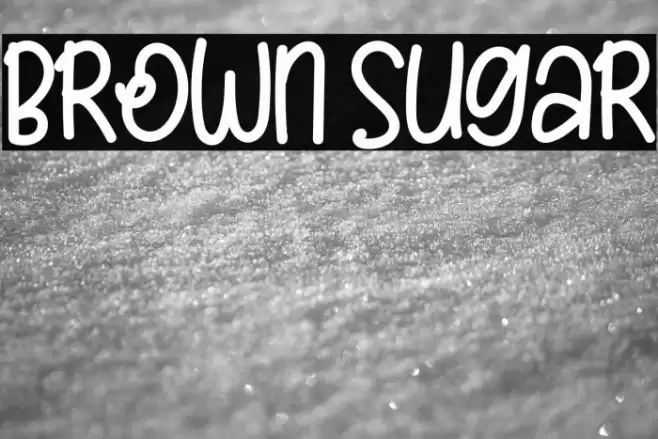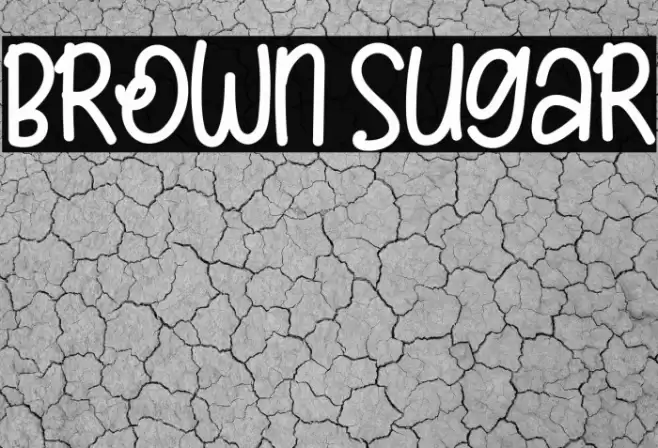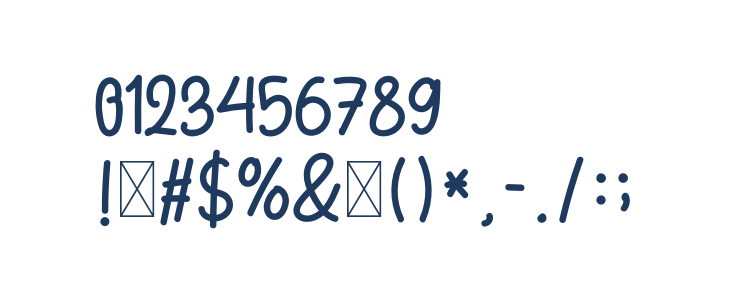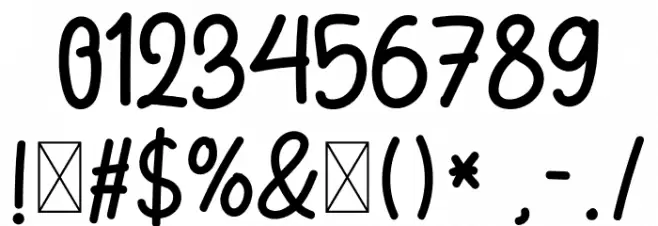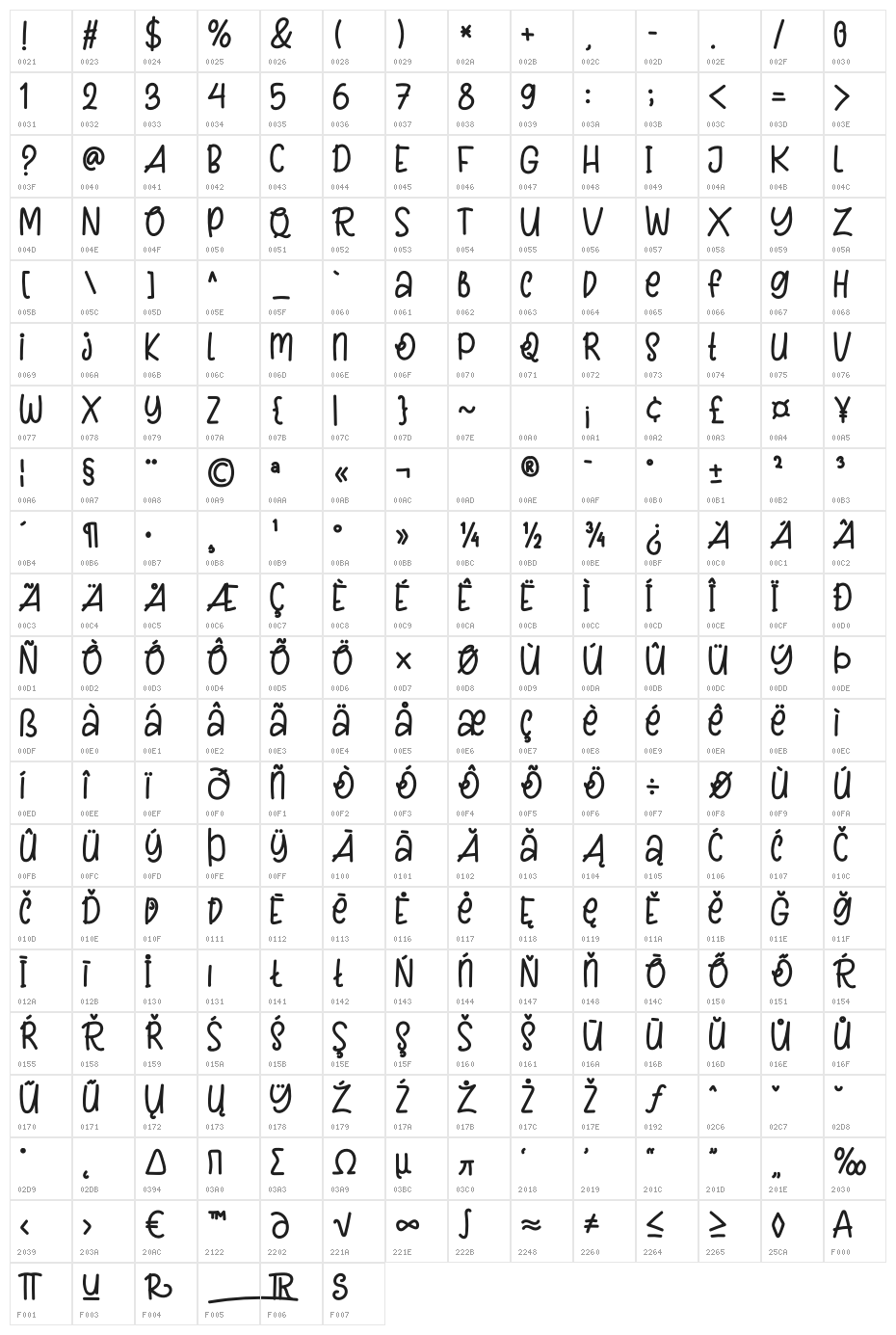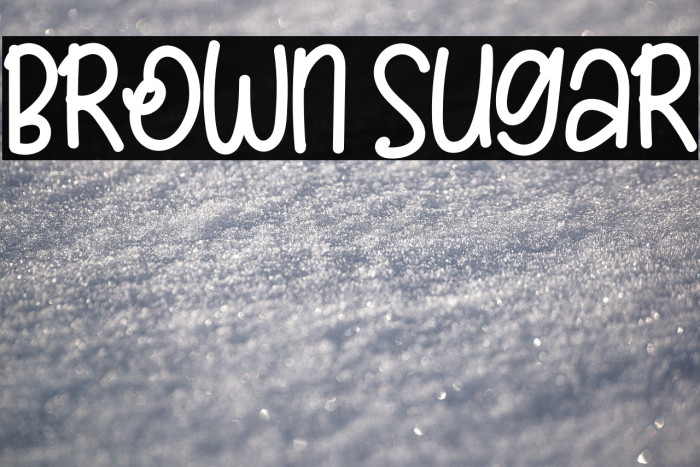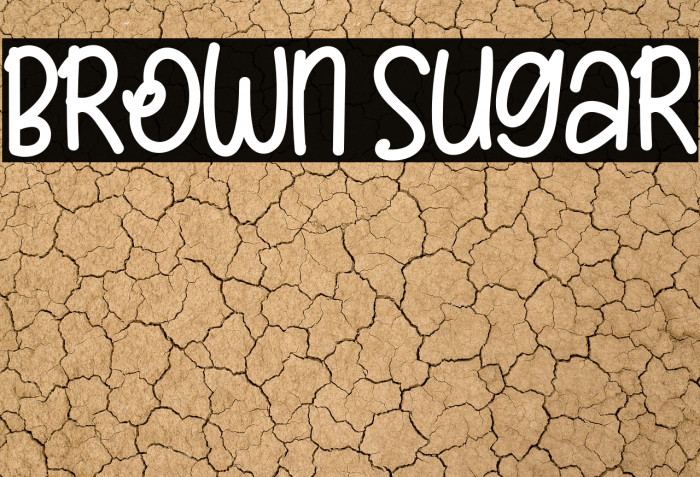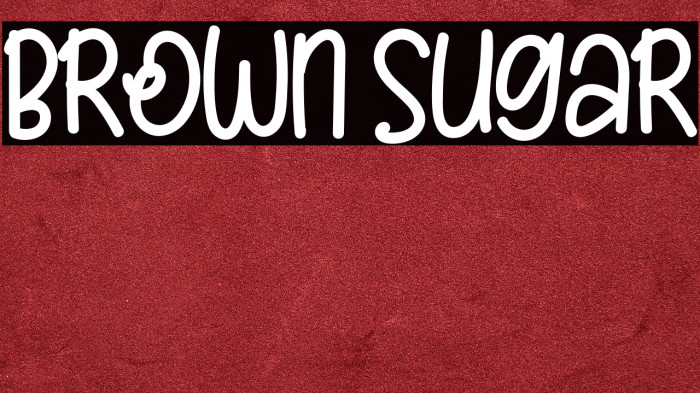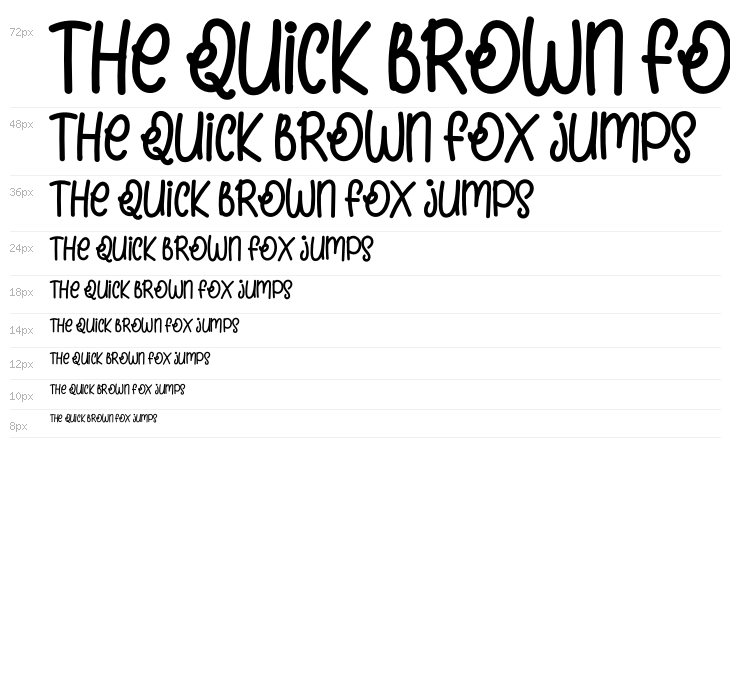
Brown Sugar Font
Brown Sugar Description
This font exudes a playful and casual vibe with its handwritten style. The letters are rounded and slightly irregular, giving it a friendly and approachable appearance. The uppercase and lowercase letters maintain a consistent flow, with smooth curves and a slight slant that adds to its informal charm. The numerals are bold and easy to read, matching the overall style of the alphabet. Special characters are included, maintaining the same playful aesthetic. This font is perfect for projects that require a personal touch, such as invitations, greeting cards, or playful branding.
A playful, handwritten font with rounded, slightly irregular letters from Regular fonts.
- Proposed Projects: Ideal for invitations, greeting cards, playful branding, and casual designs.
- Overall Style: Casual, Playful
- Use Case: Headlines, Logos, Casual Text